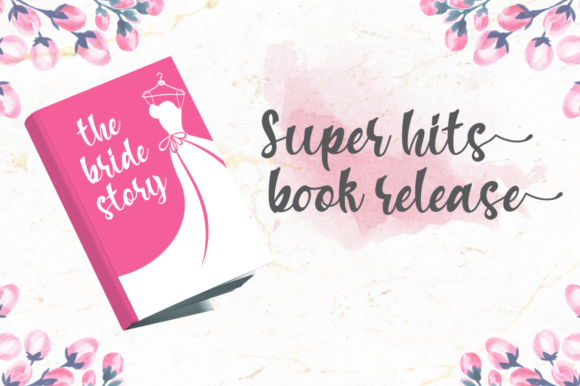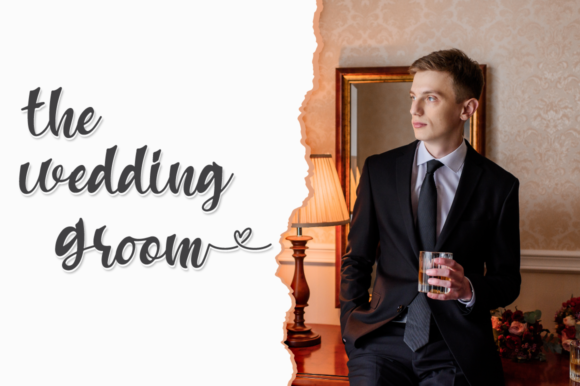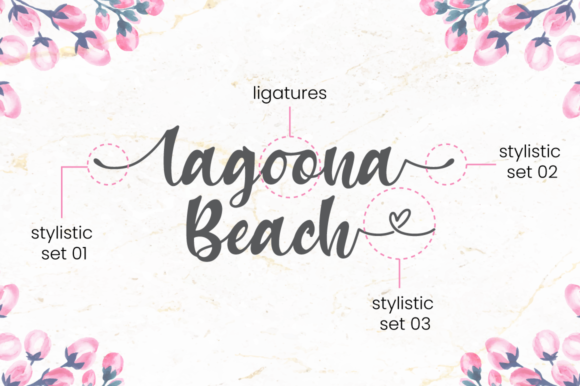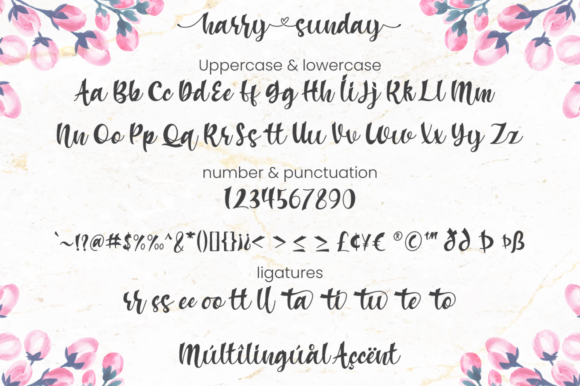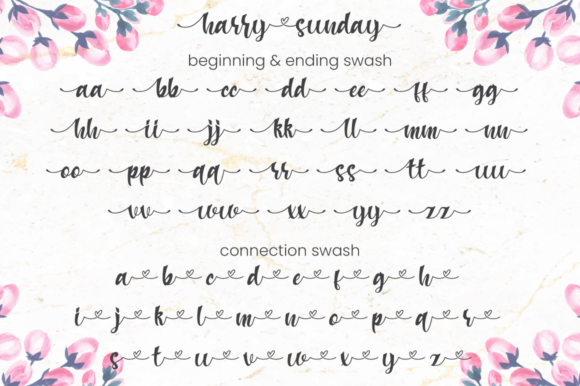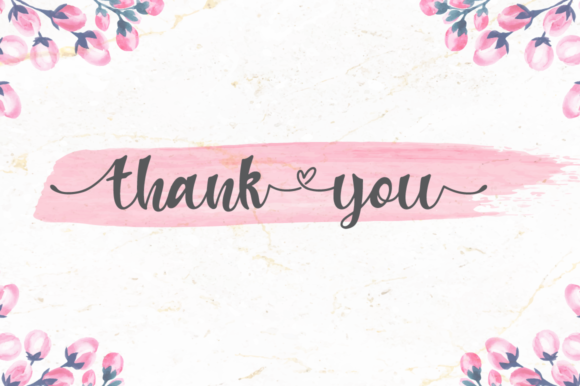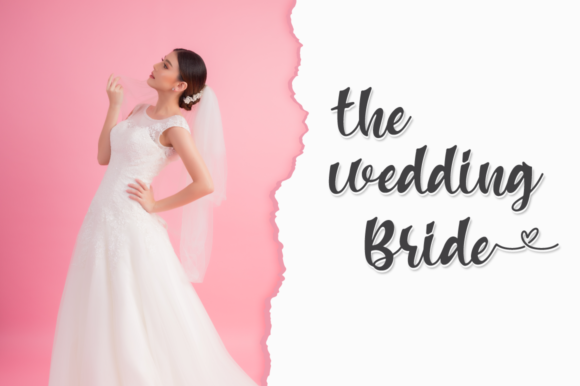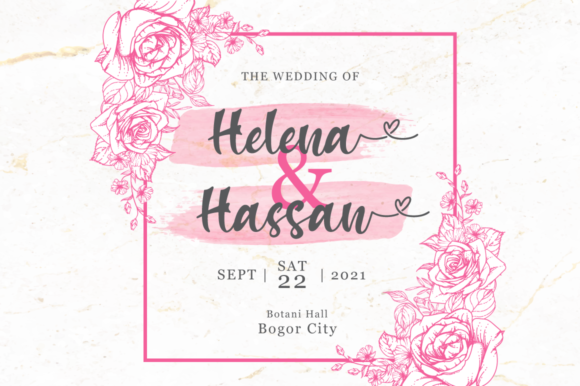
Harry Sunday Font
About Harry Sunday Font
Harry Sunday is a handwritten script font, with an elegant and beautiful look. It looks stunning on wedding invitations, thank you cards, quotes, greeting cards, logos, business cards and every other design which needs a handwritten touch.